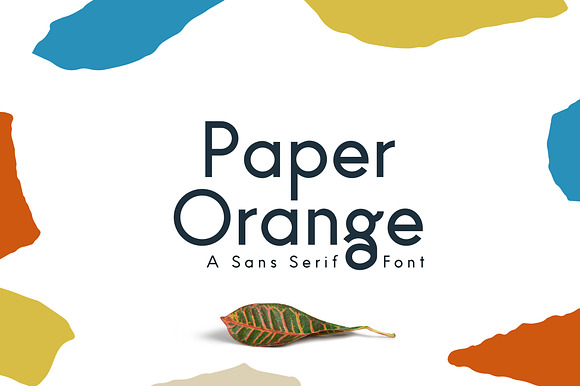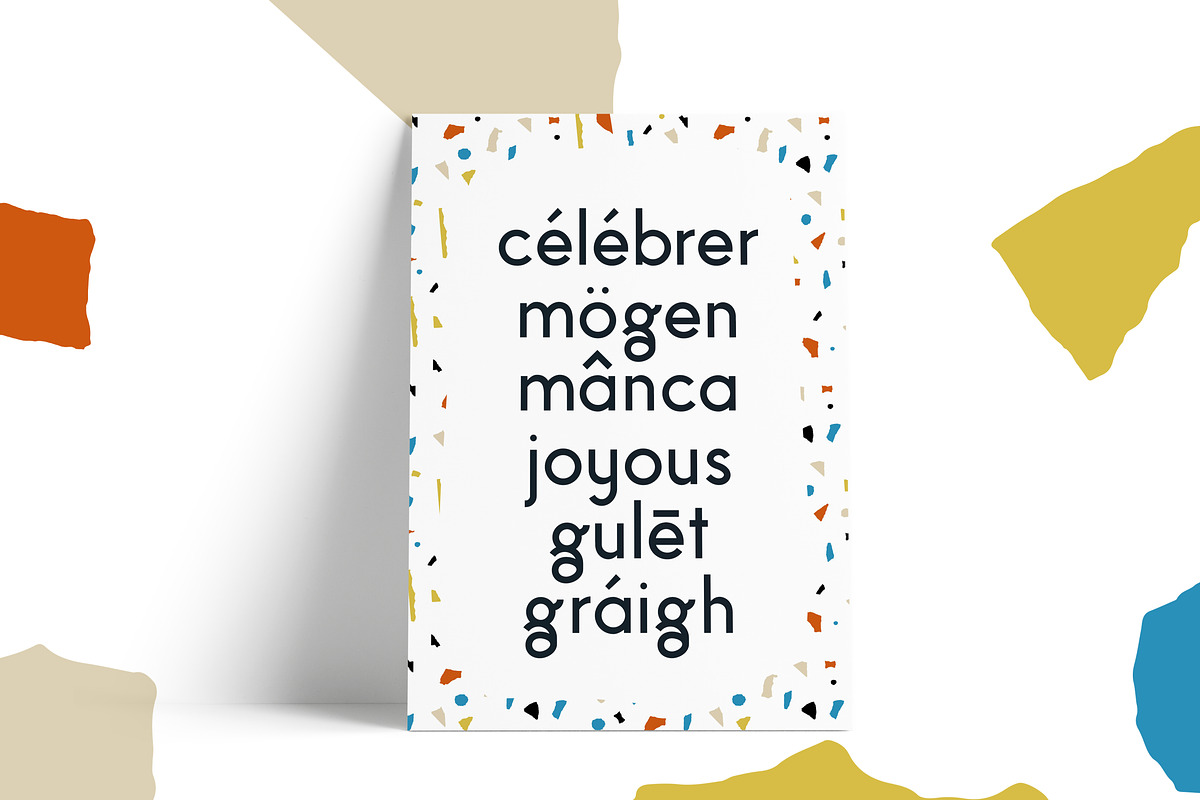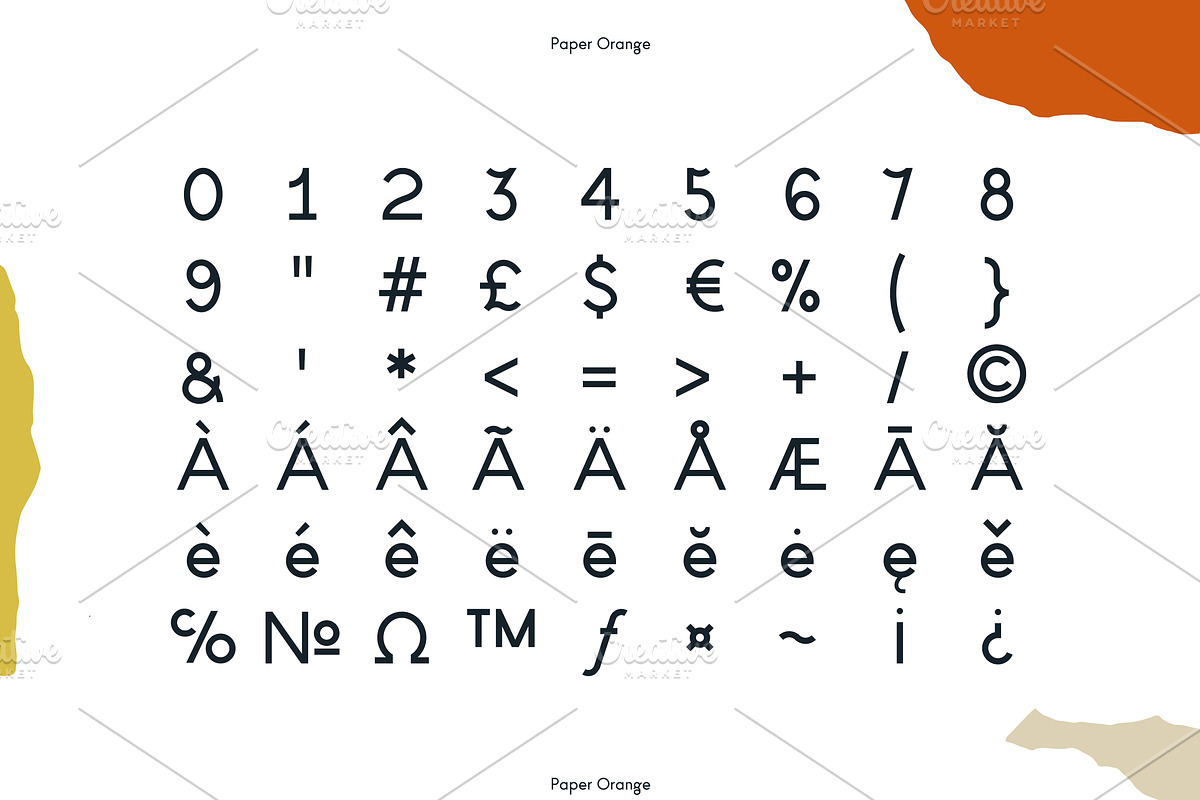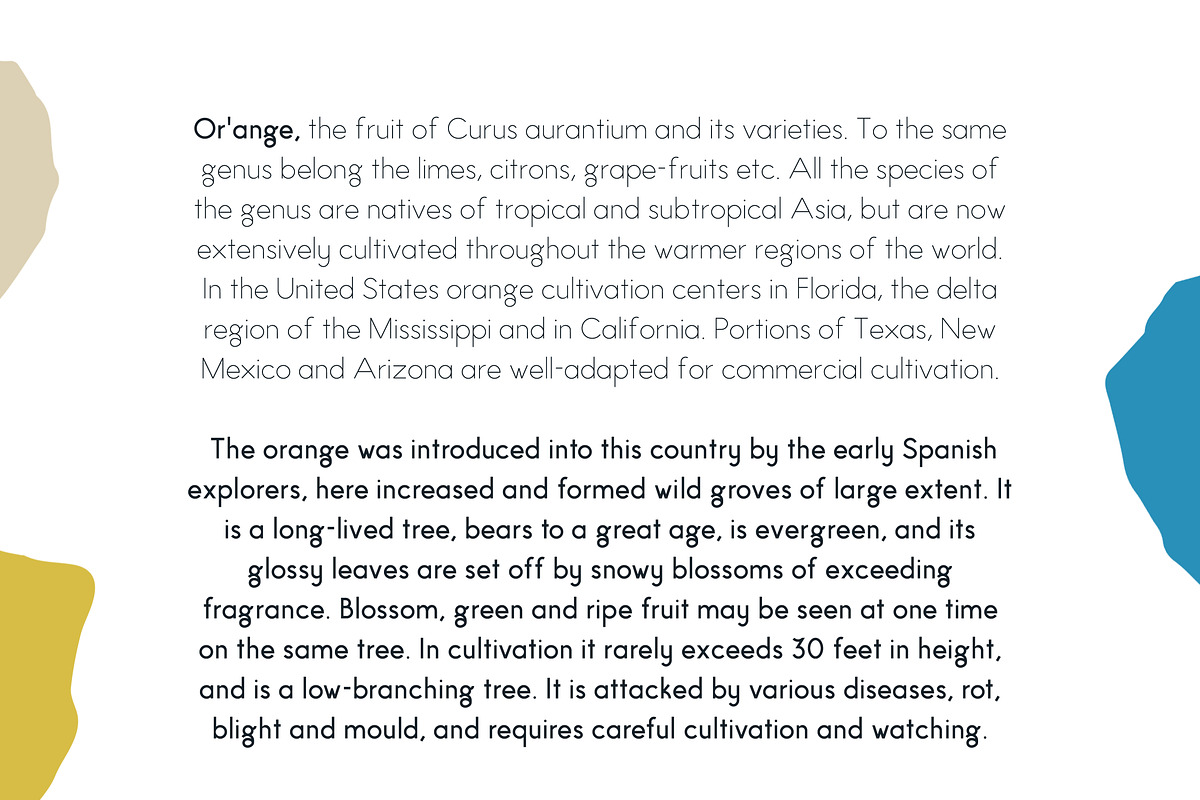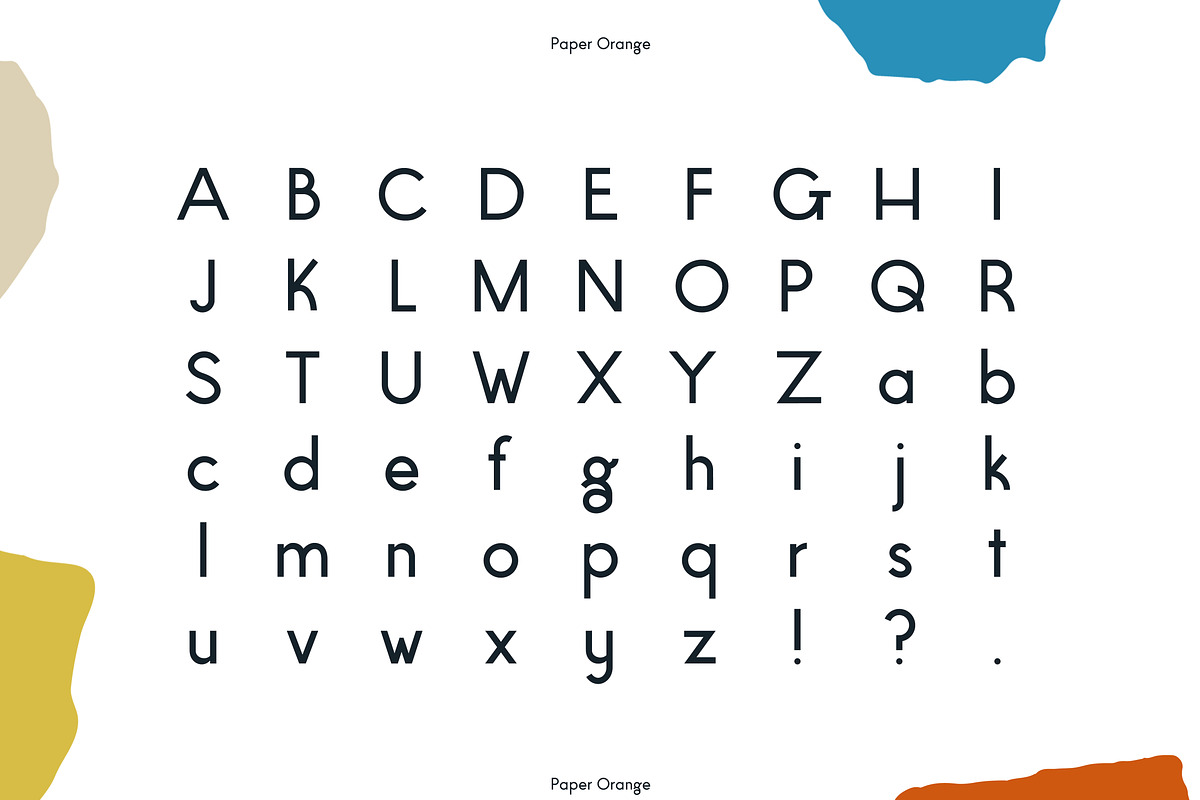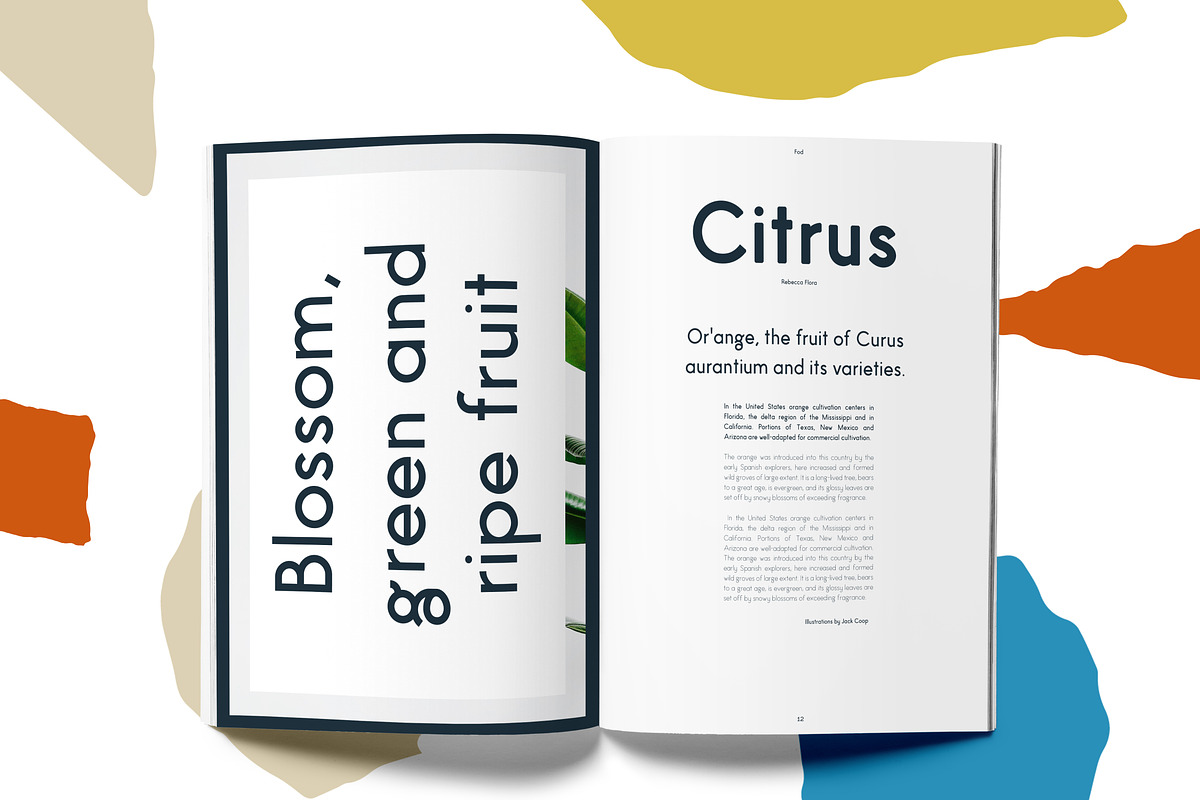
Paper Orange Font Family
A cheerful and fun grotesque sans serif font, ideal for print and web design with a friendlier look.
2 weights (regular and light)
punctuation, symbols, numbers
Supports: Danish, Dutch, Finnish, Flemish, German, Icelandic, Irish, Italian, Norwegian, Portuguese, Spanish, Swedish, Basque, Breton, Catalan, Croatian, Czech, Esperanto, Estonian, French, Frisian, Hungarian, Latvian, Lithuanian, Polish, Provençal, Romanian, Sami, Slovenian, Sorbian, Turkish, Welsh, and many others